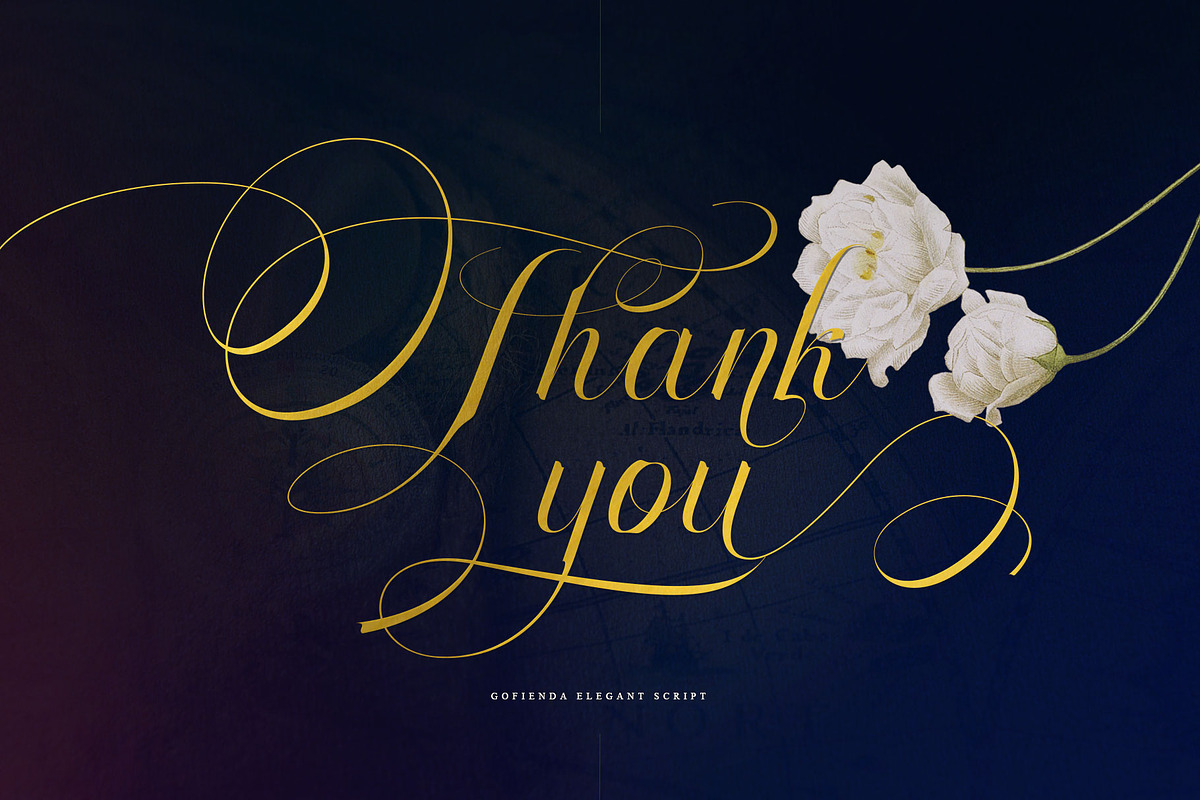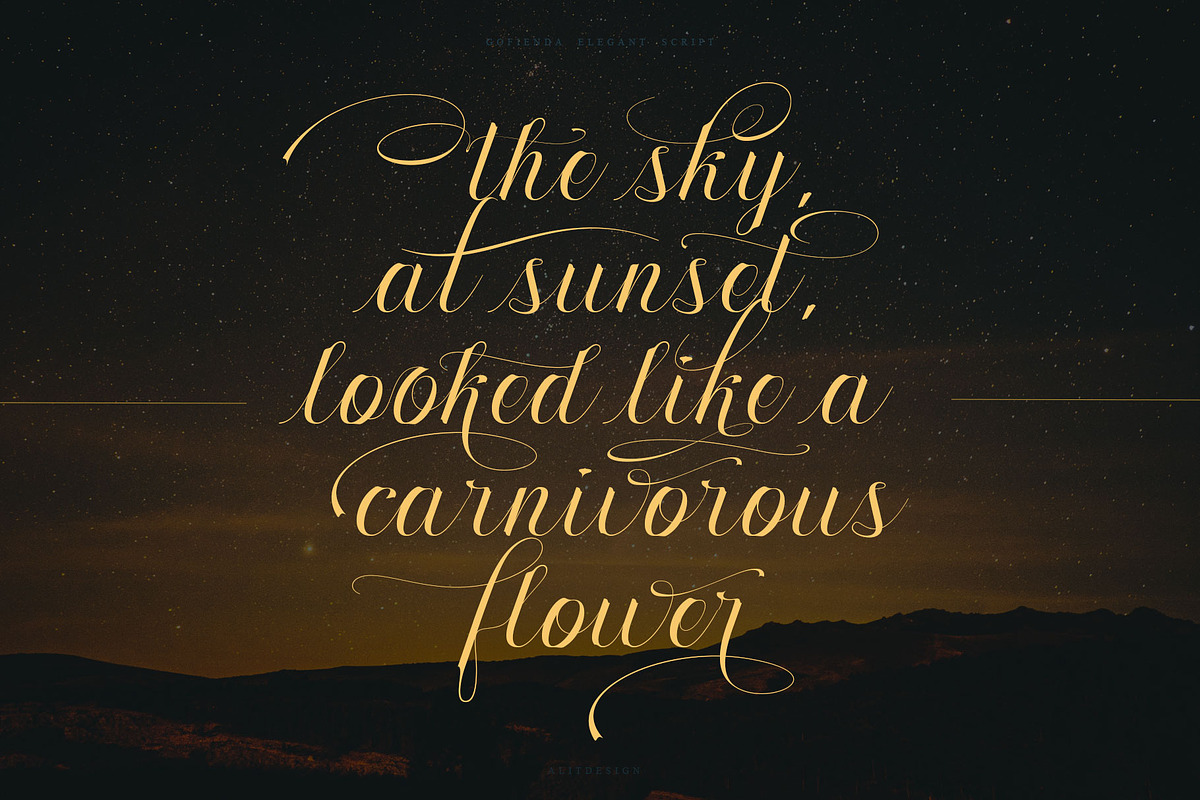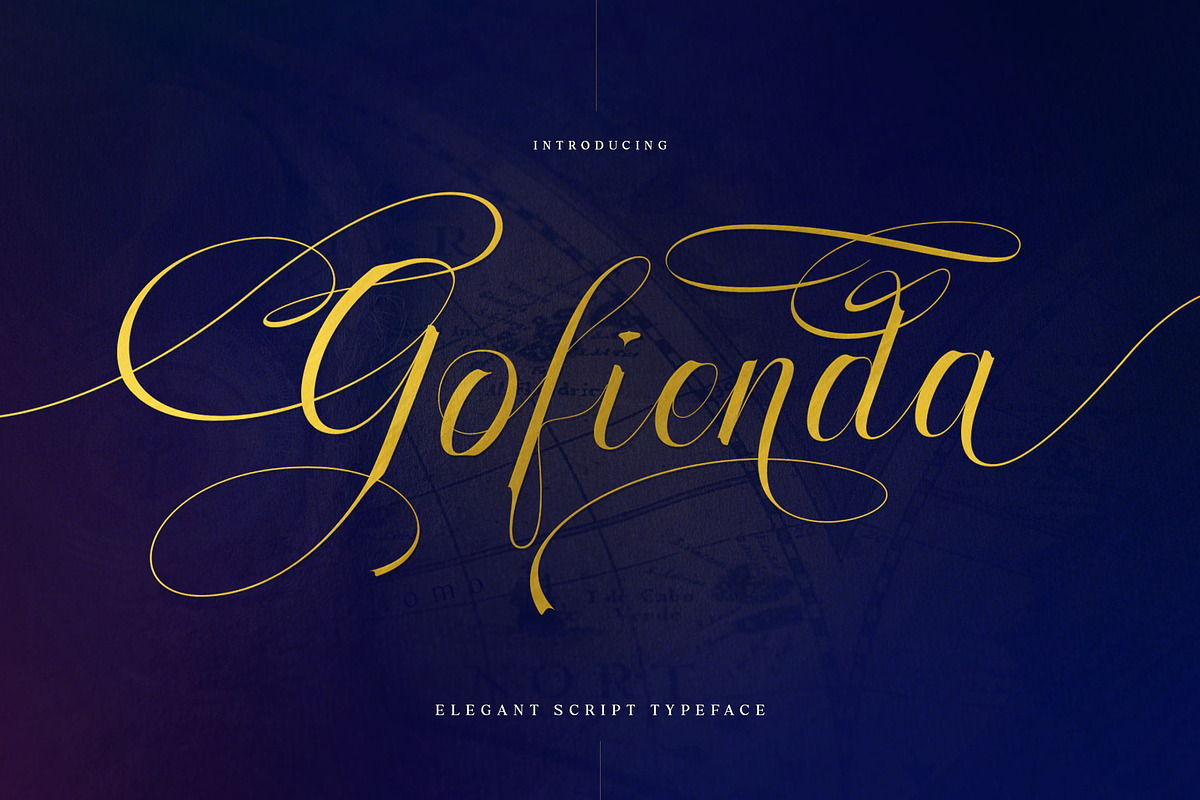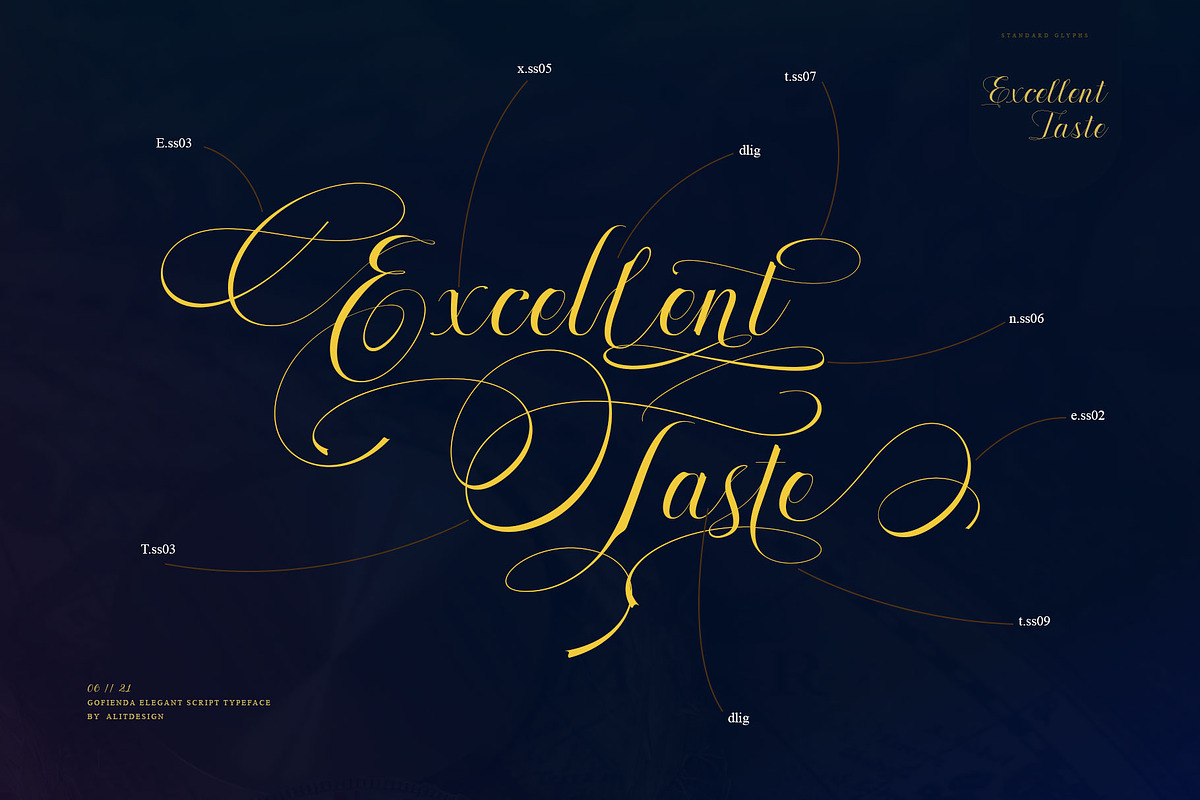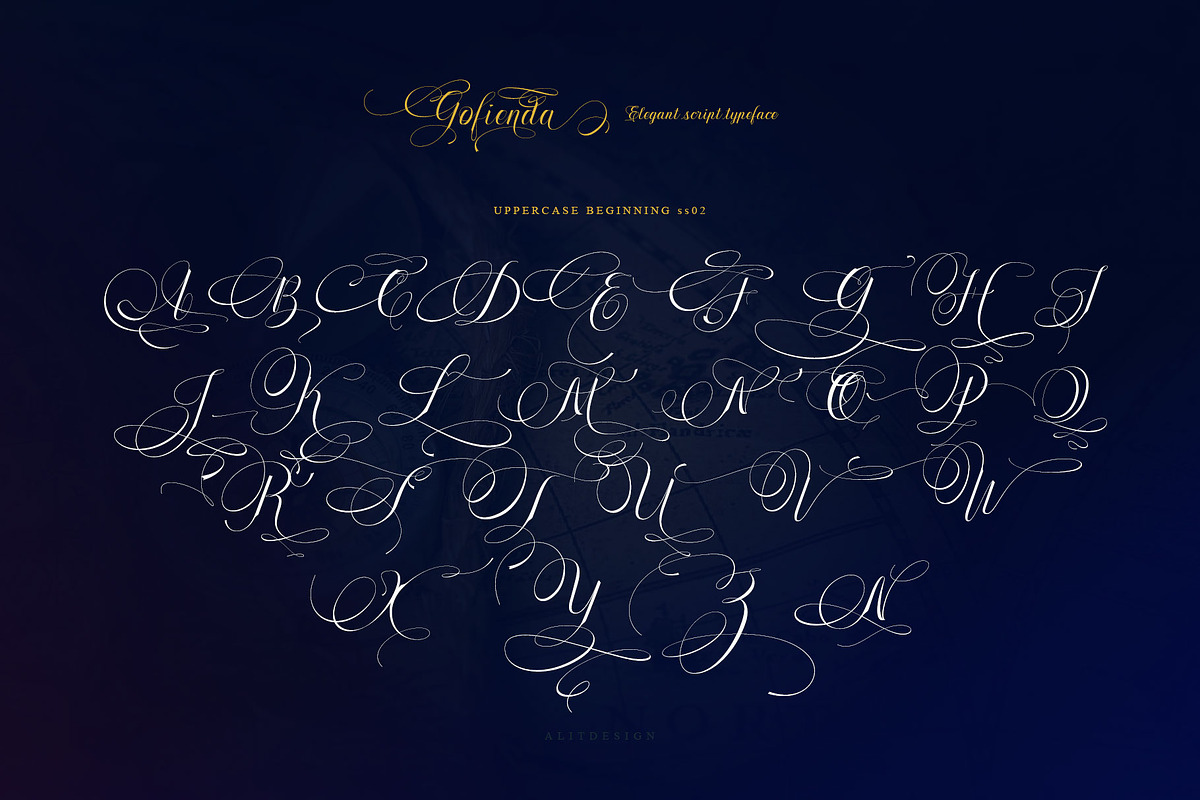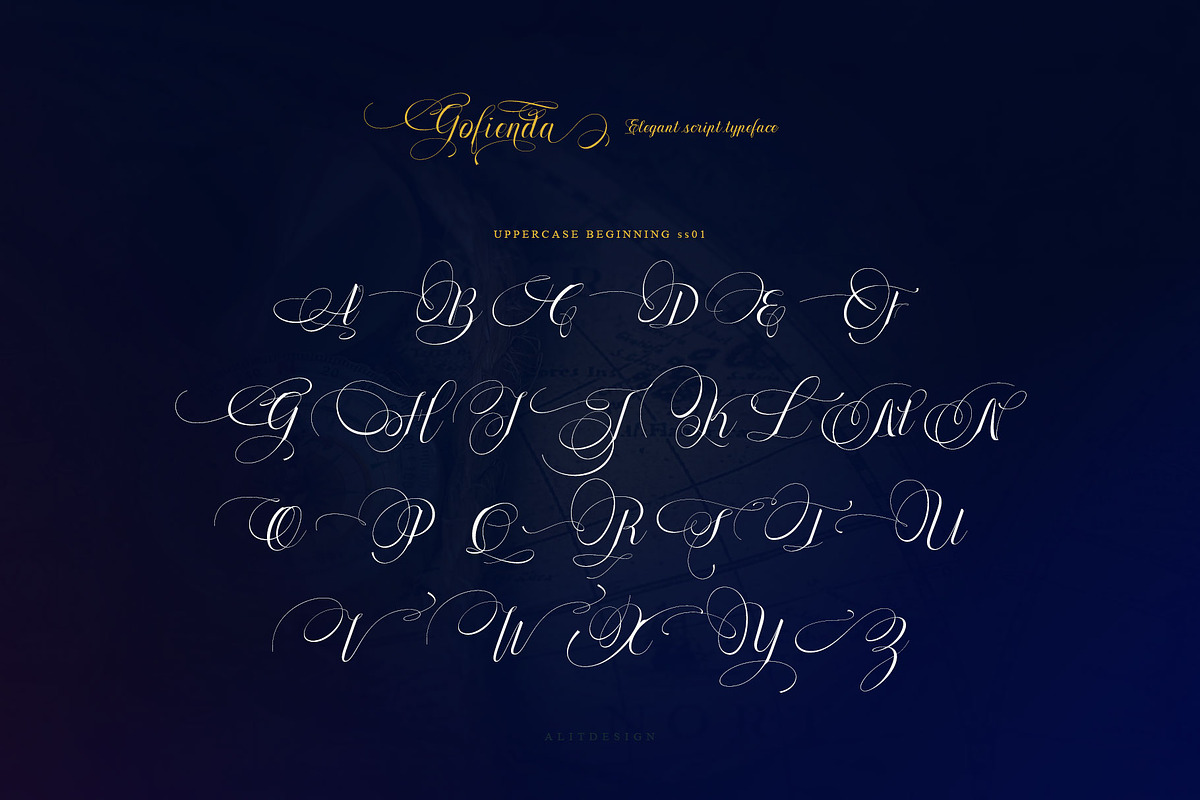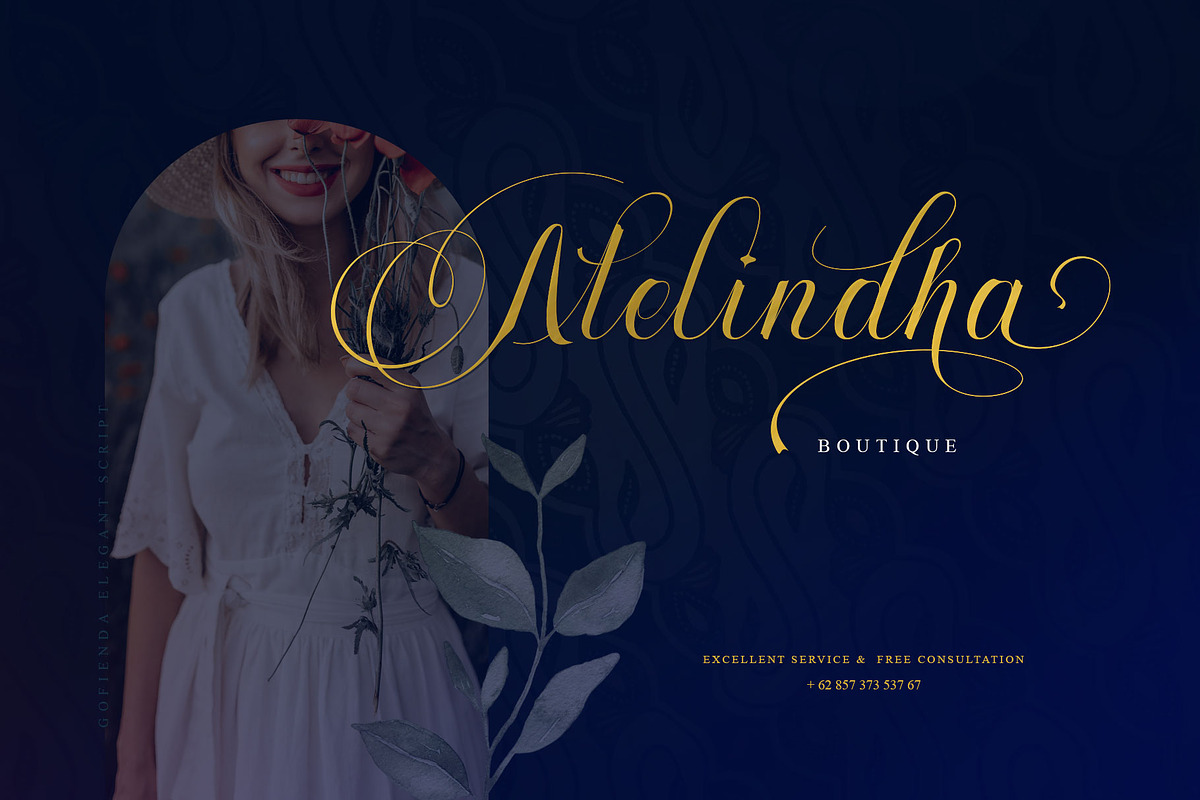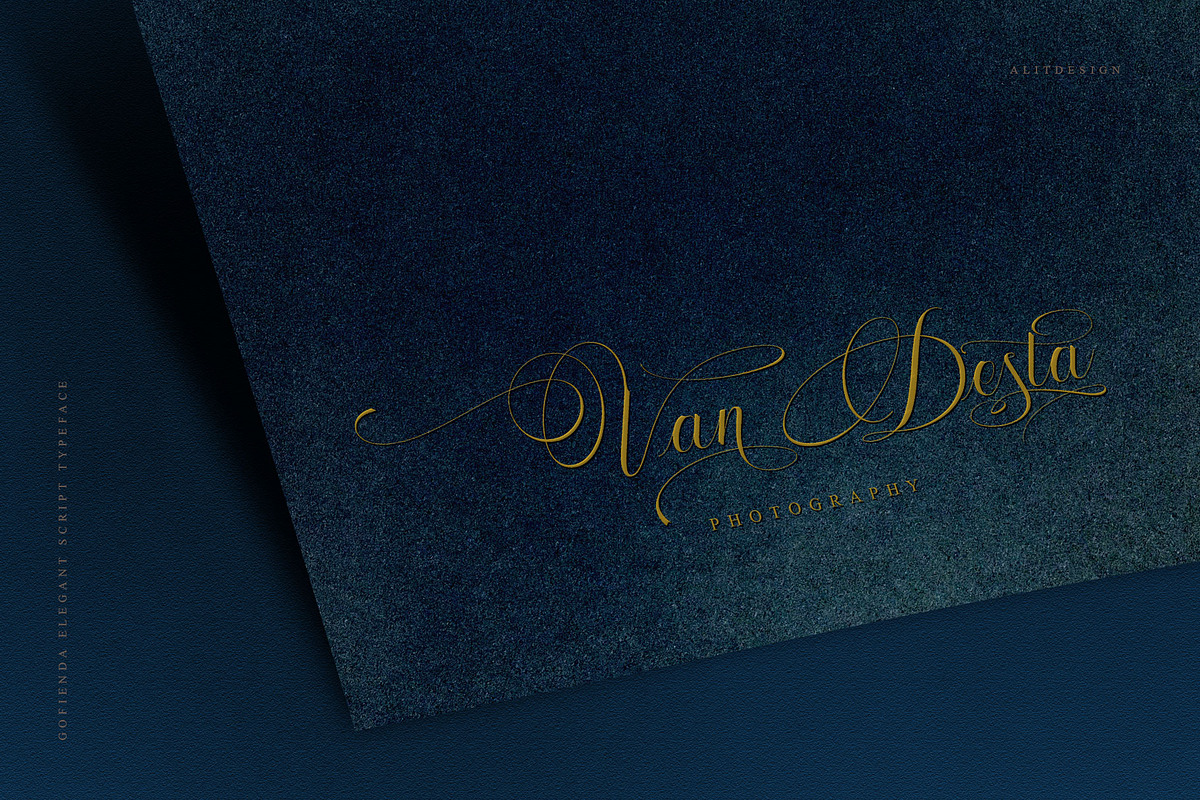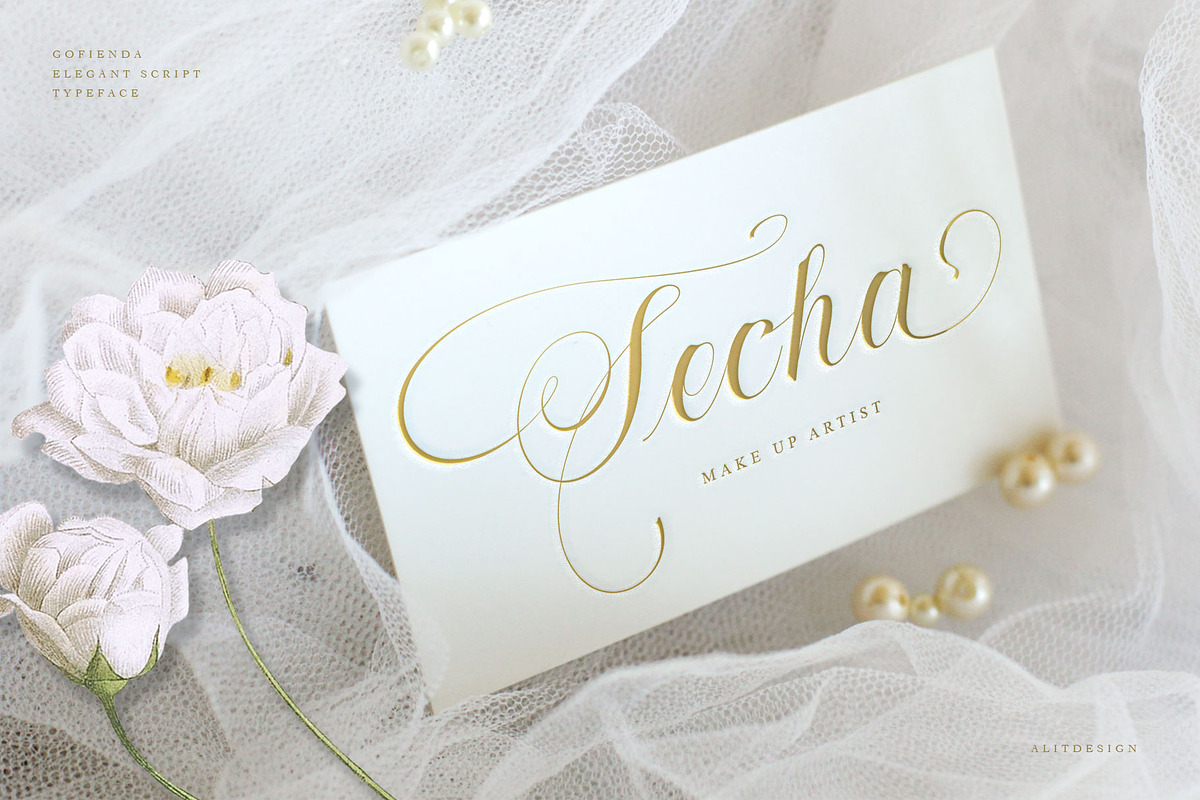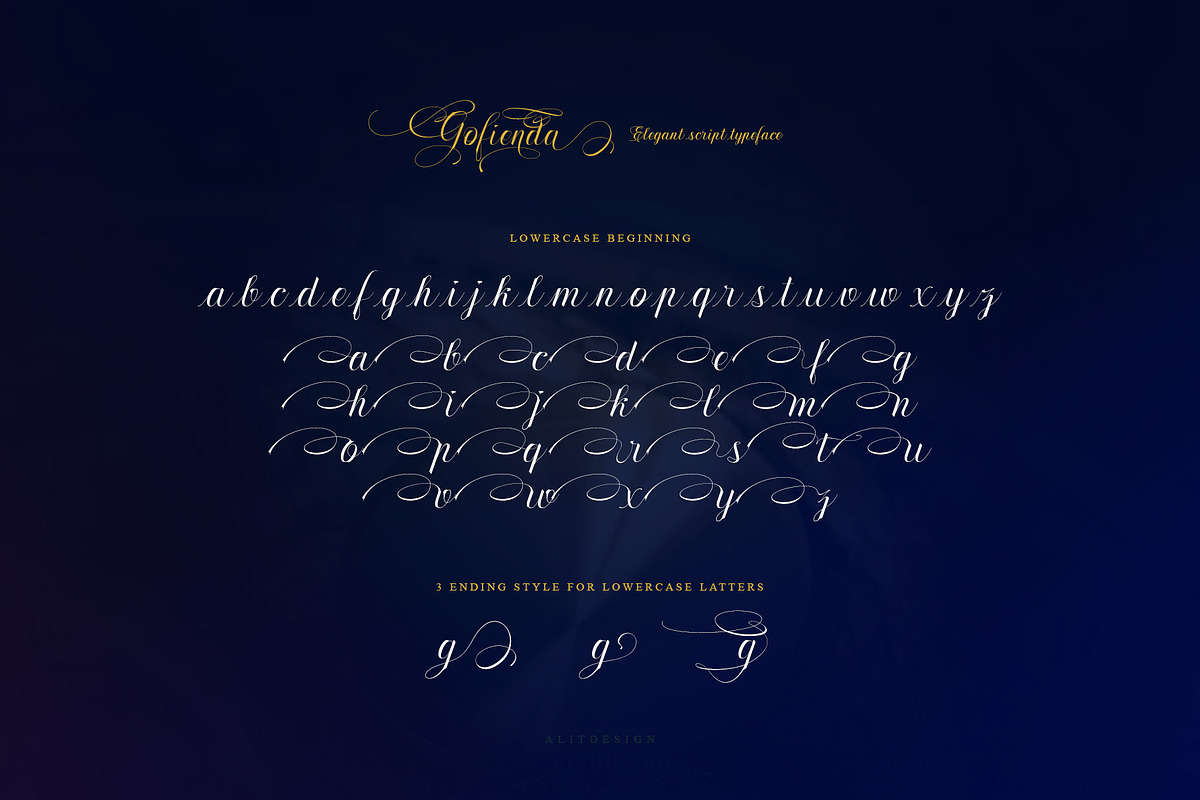
Gofienda
Introducing Gofienda Typeface
Gofienda typeface Inspired by ancient manuscripts in the European area. Carefully designed to work together in harmony making it perfect for wedding favors, book covers, greeting cards, logos, branding, business cards and certificates, even for any design work that requires classic, formal or extravagant.
Attempt calligraphy Desired, delight in those riches from claiming OpenType features and tell its exquisite fun and fervor make you euphoric What's more support your creativity! you might utilize this font precise undoubtedly.
Elegant script “Gofienda Typeface” are very easy to apply to any design, especially those with an elegant and smooth concept, apart from that this font is very easy to use in both design and non-design programs because all alternates and glyphs are supported by Unicode (PUA).